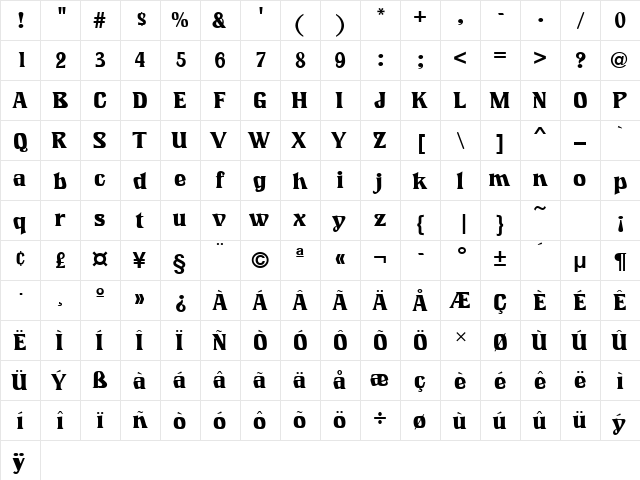
IntrospectURWTBoo Regular
Design Context for IntrospectURWTBoo Typeface
IntrospectURWTBoo takes a measured approach to typography — its balanced proportions and neutral character make it a reliable workhorse for both digital and print work.